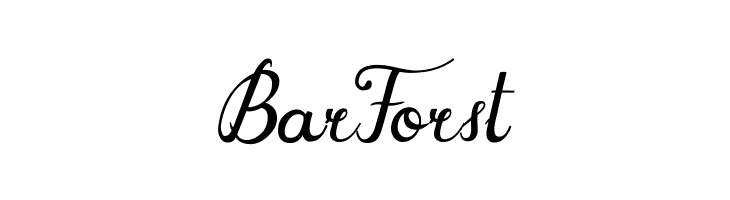
An elegant, flowing script font with a classic, sophisticated appearance.
A charming handwritten font with elegant, playful characteristics.
A bold, hollow font with a vintage, three-dimensional style.
An elegant and flowing script font with smooth, cursive strokes.
A bold, expressive script font with a modern calligraphic style.
A decorative and flowing font with artistic letterforms.
A refined, light, and italic font with elegant curves and a sophisticated style.
A playful, heart-accented decorative font with elongated, narrow characters.
A classic blackletter font with ornate, angular lines and decorative serifs.